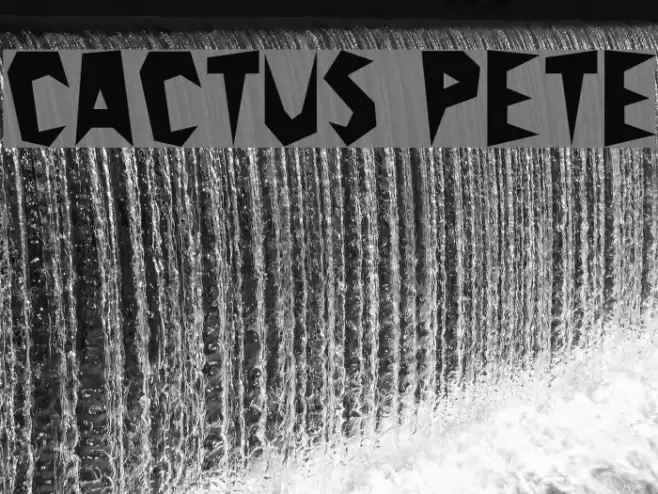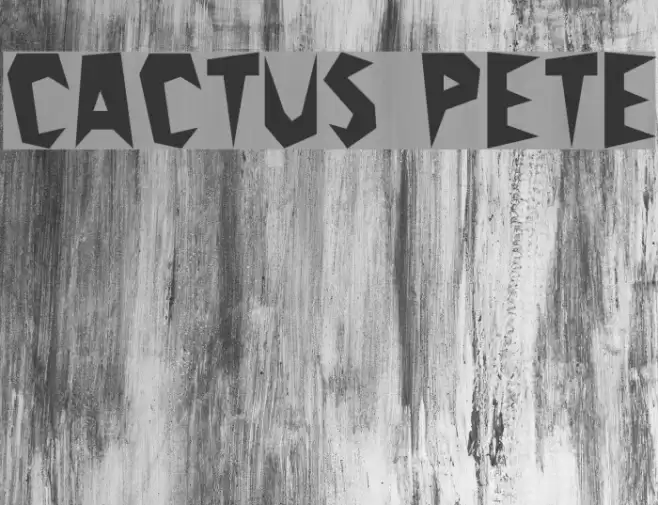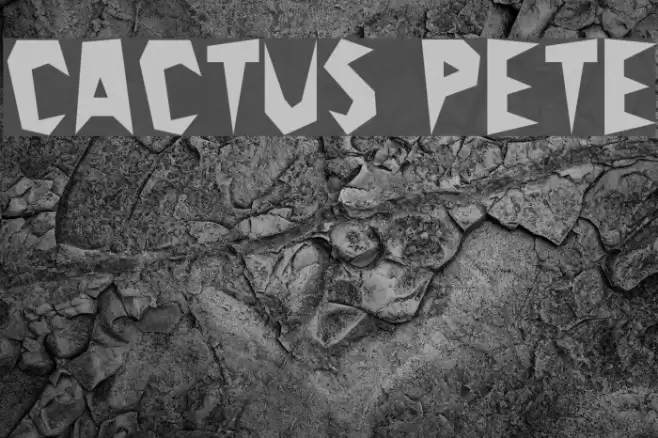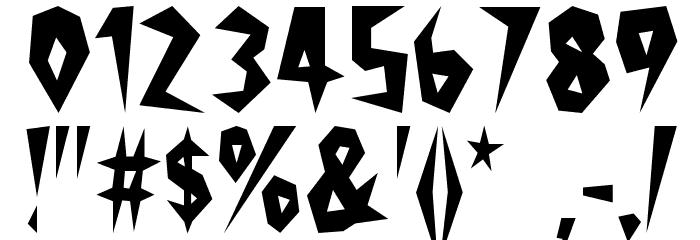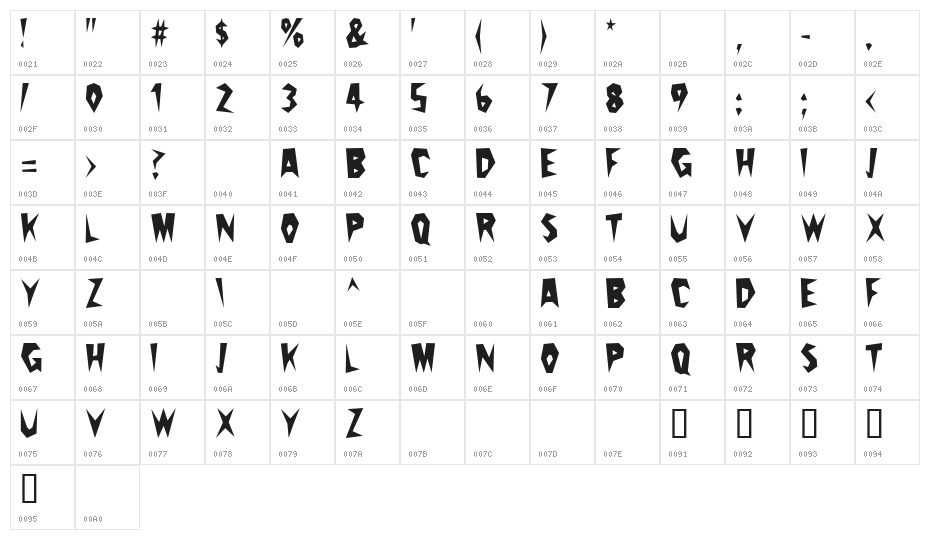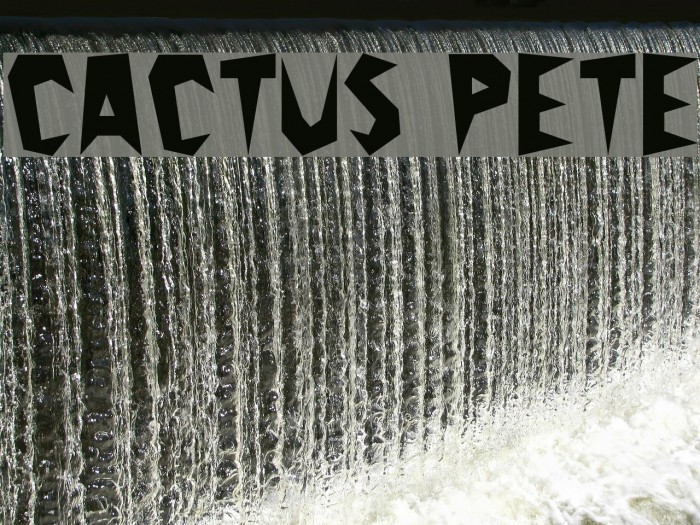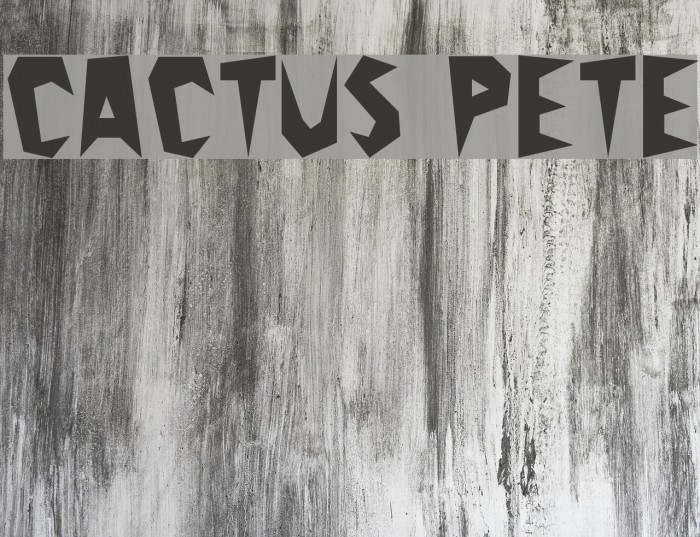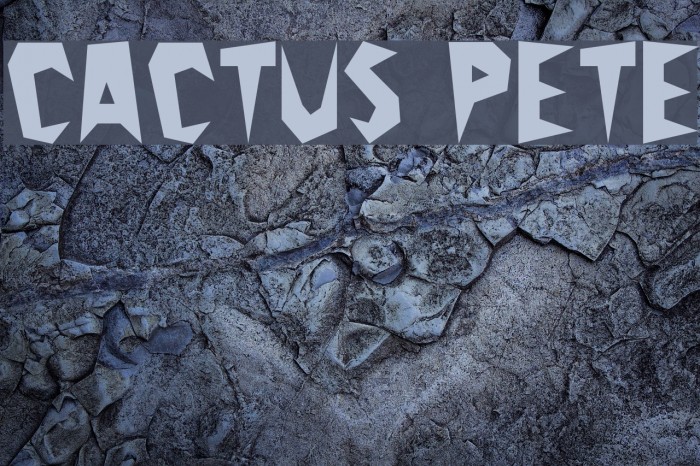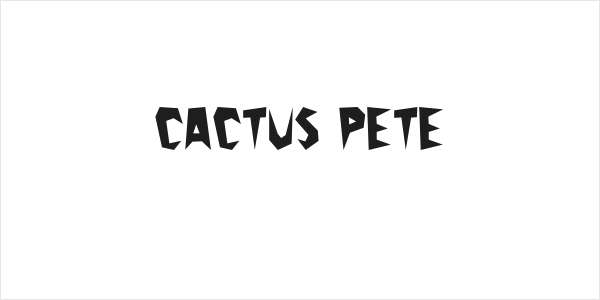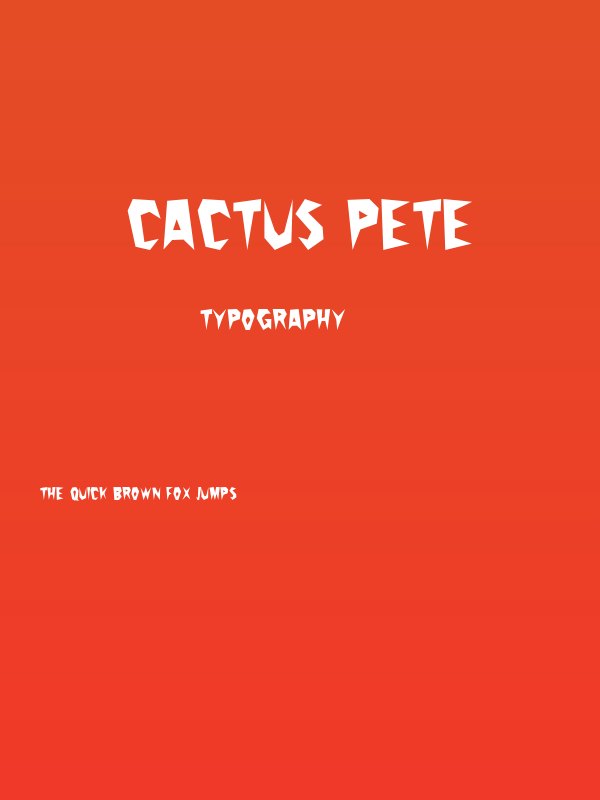
Cactus Pete Font
Cactus Pete Description
This font features a bold and jagged design, reminiscent of sharp, angular shapes that evoke a sense of edginess and dynamism. The characters are uniquely stylized with pointed edges and irregular forms, giving it a distinctive and eye-catching appearance. It is designed to stand out and make a statement, suitable for projects that require a bold and unconventional look. The uppercase and lowercase letters maintain a consistent style, while the numbers and special characters complement the overall aesthetic with their sharp and striking forms.
A bold, jagged font with sharp, angular shapes for a dynamic look.
- Proposed Projects: Ideal for posters, album covers, video game titles, and any project needing a bold, edgy aesthetic.